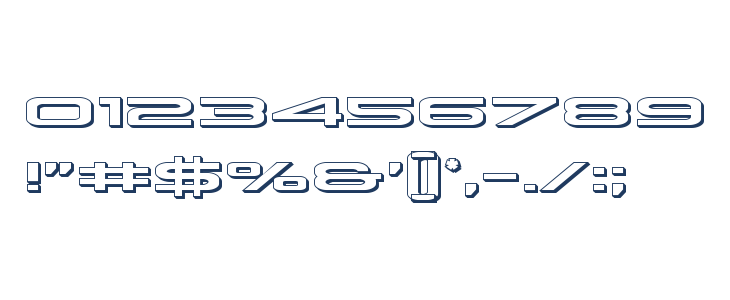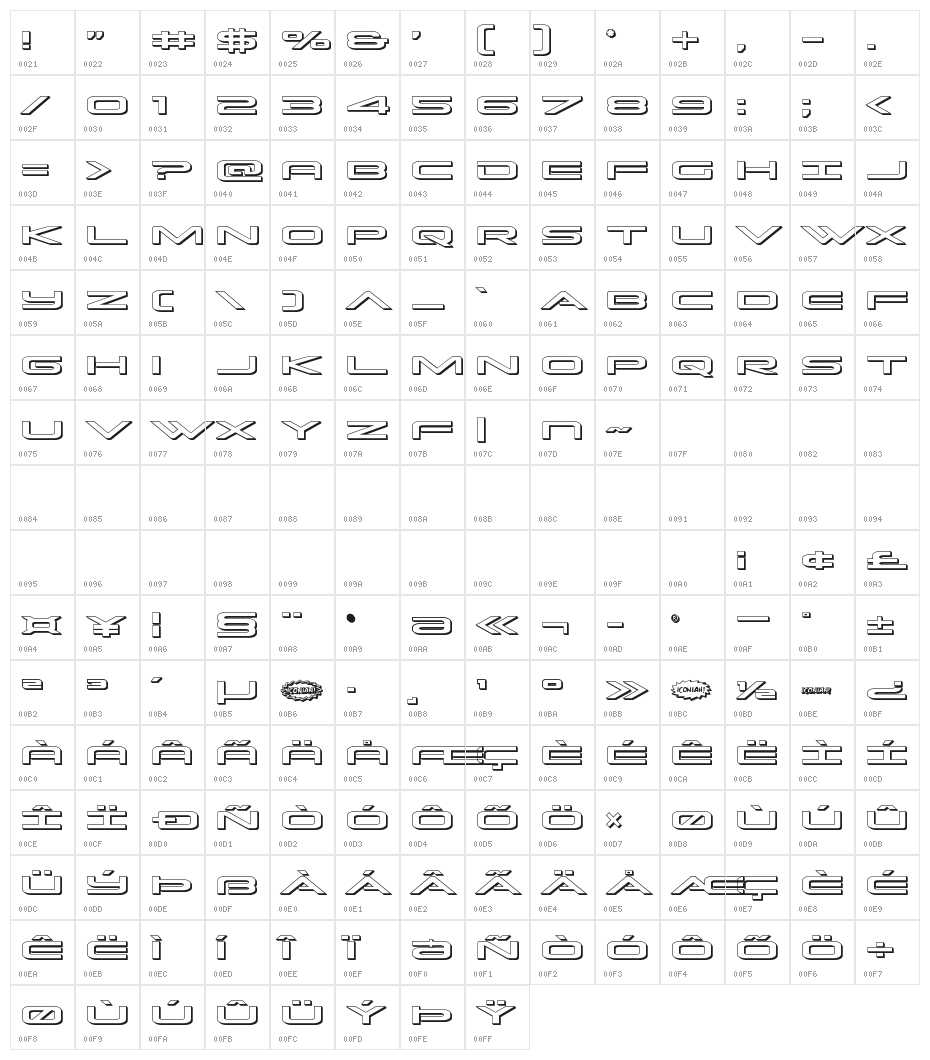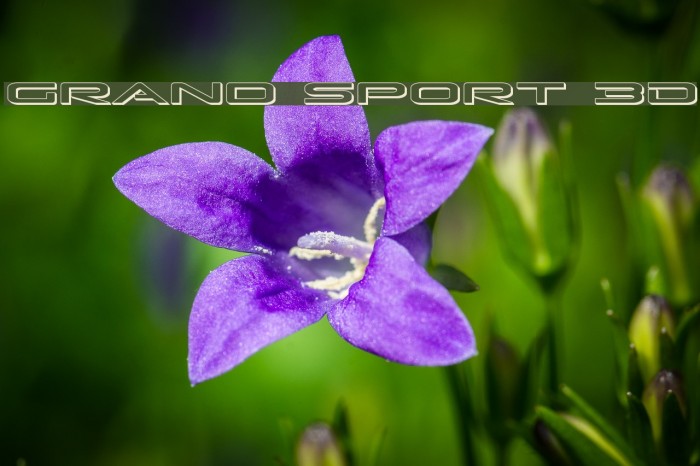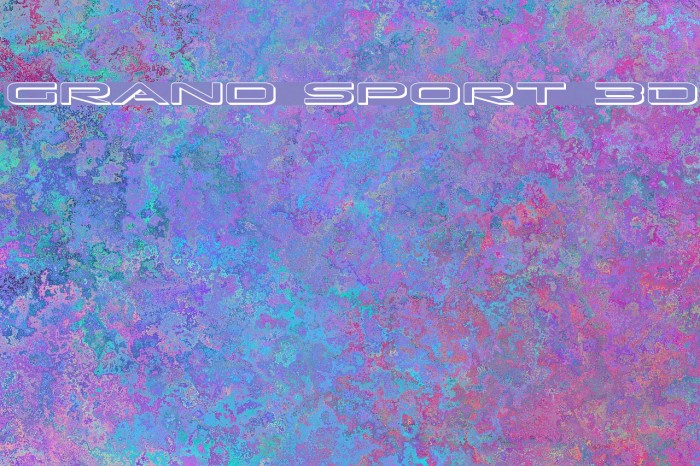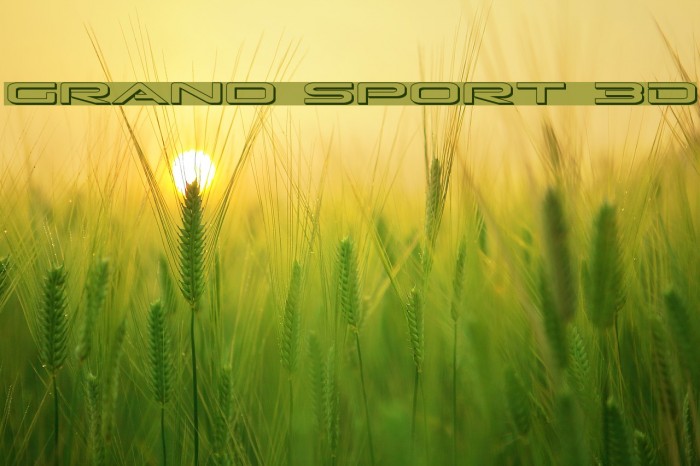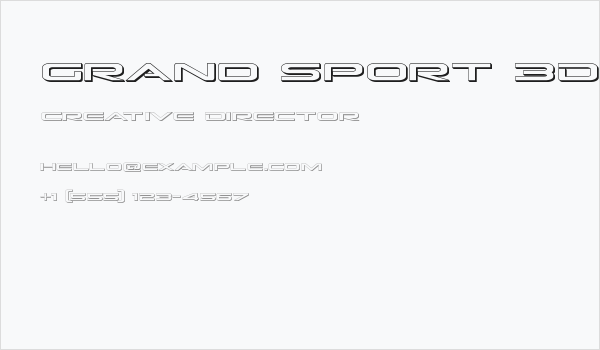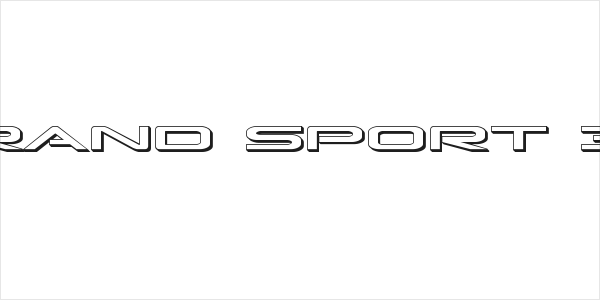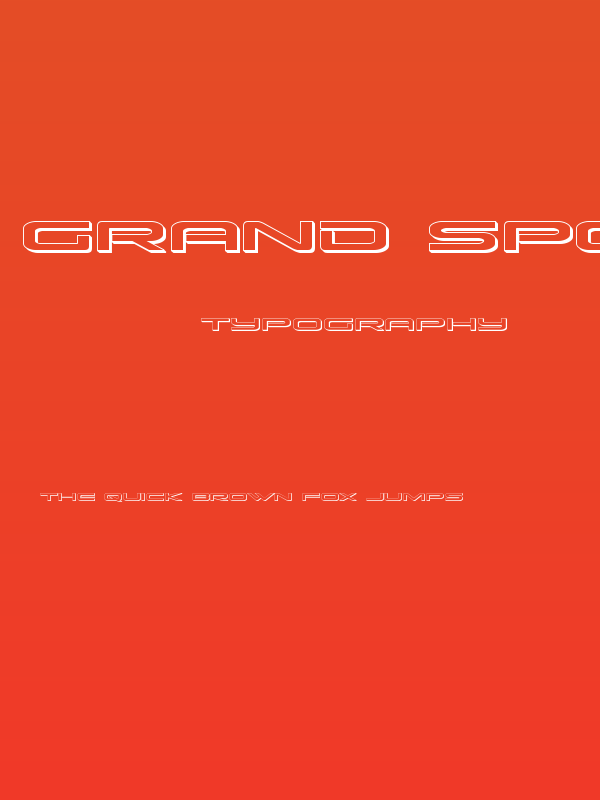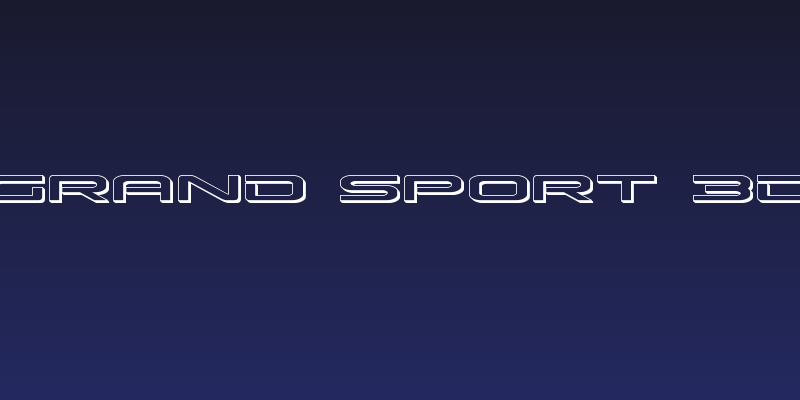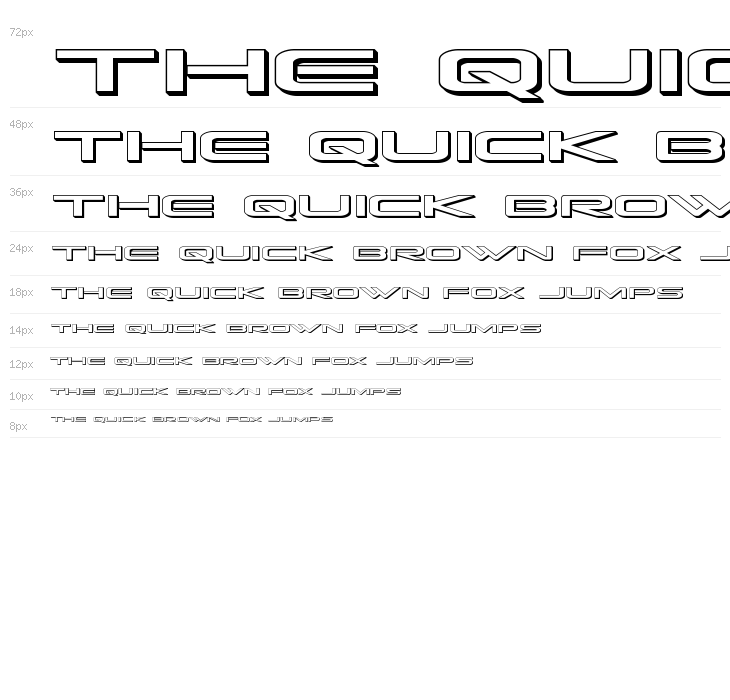
Grand Sport 3D Font
Grand Sport 3D Description
This font features a bold, three-dimensional design with a futuristic and sporty aesthetic. The characters are outlined, giving them a hollow appearance that enhances the 3D effect. The uppercase letters are angular and geometric, with sharp edges and clean lines. The numbers and special characters follow the same design principles, maintaining consistency across the set. This font is ideal for projects that require a modern and dynamic look, such as sports branding, automotive designs, or technology-related themes.
| Proposed Projects | Ideal for sports branding, automotive designs, technology themes, and dynamic logos. |